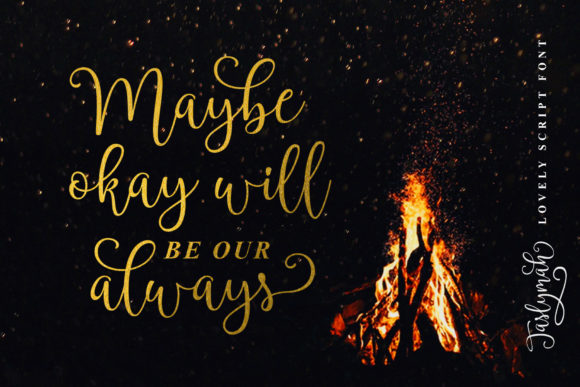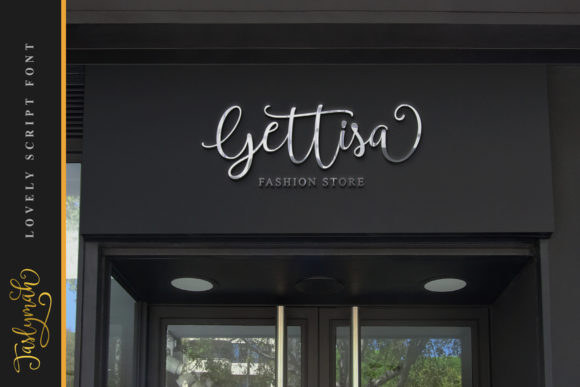
About Taslymah Font
“Taslymah” sounds like a beautiful and versatile handwritten font with delicate and flowing characteristics. Your description highlights its stunning appearance on various design elements, including wedding invitations, thank you cards, quotes, greeting cards, logos, business cards, and any other designs that require a touch of handwriting.
The fact that Taslymah is PUA encoded is another valuable feature. This encoding allows easy access to all the glyphs and swashes, providing designers with the flexibility to incorporate unique and intricate elements into their projects effortlessly.
Using Taslymah in your design work can add a personal and elegant touch, creating a sense of intimacy and warmth in your creations. Whether it’s a romantic wedding invitation or a heartfelt thank-you card, this font has the potential to elevate your designs to a higher level, making them stand out and leaving a lasting impression on recipients.
Additionally, the flowing and delicate nature of Taslymah can evoke emotions and add a sense of sophistication to your designs. Its versatility makes it suitable for a wide range of projects, ensuring consistency across various materials and maintaining a cohesive brand identity.
As you use Taslymah in your designs, you’ll have the freedom to experiment with different swashes and glyphs to customize the typography according to your creative vision. This font can be an excellent choice for branding projects, where a unique and handwritten style is desired to reflect a company’s values and personality.
Remember to maintain readability when using script fonts like Taslymah. Ensuring proper kerning and spacing between characters will ensure that the text remains legible and easy to read.
In conclusion, Taslymah is a fantastic handwritten font that promises to add a touch of elegance and grace to a wide range of design projects. Its PUA encoding allows for seamless access to its various glyphs and swashes, making it an invaluable asset for designers seeking to create stunning and personalized designs.